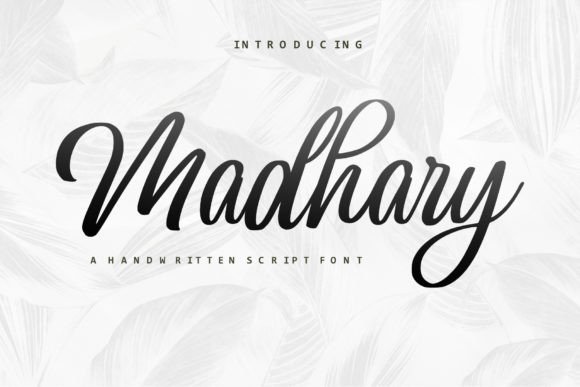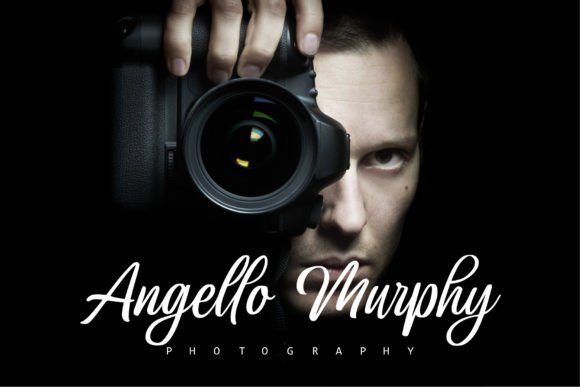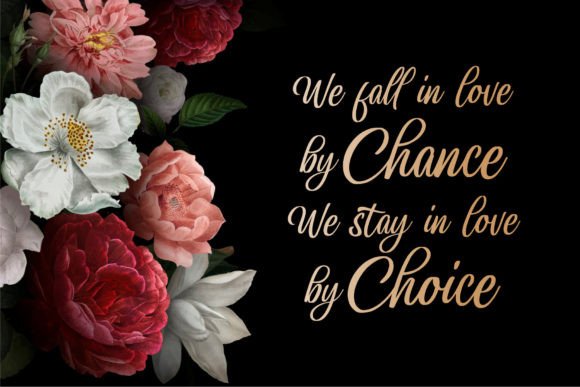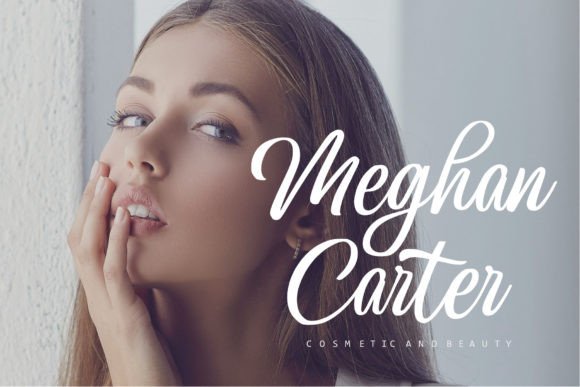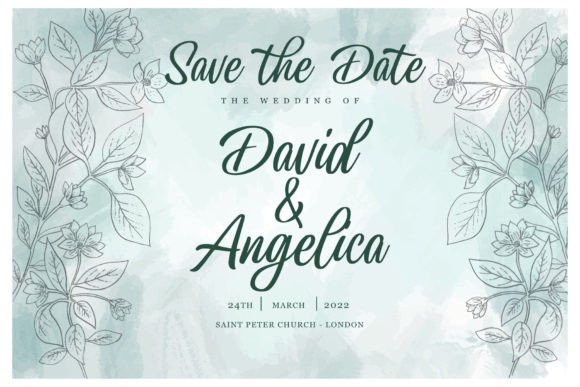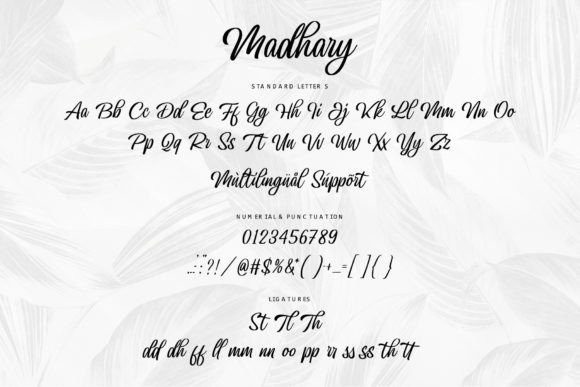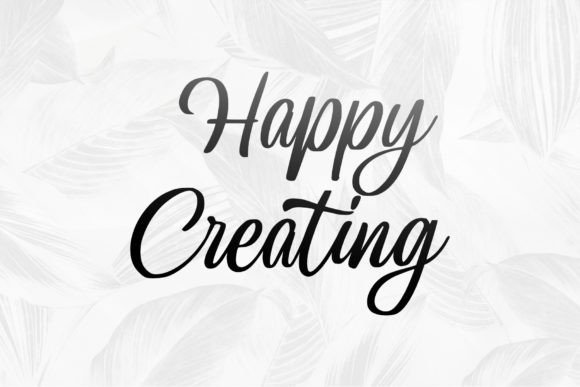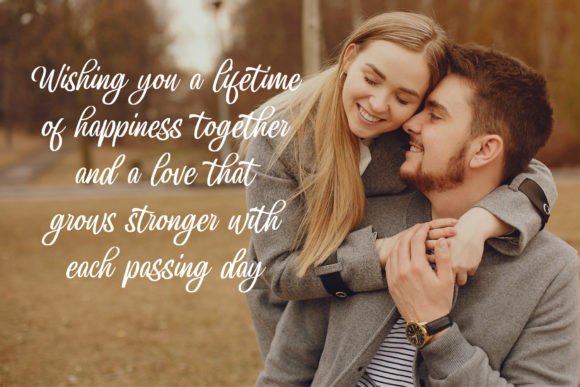
Madhary Font
About Madhary Font
**Madhary – Chic and Refined Script Font**
Madhary is an elegant and refined script font with stylish ligatures, making it a versatile choice for a wide range of design projects. Here are some key features and potential uses for Madhary:
1. **Chic Typography:** Madhary exudes chic and sophistication, making it an excellent choice for projects that require an upscale and stylish appearance. Its fashionable script style adds a touch of elegance to your designs.
2. **Branding Projects:** Use Madhary for branding and visual identity projects. Create logos, business cards, and other brand collateral that communicates a sense of class and style.
3. **Wedding Designs:** Design wedding invitations, save-the-date cards, and wedding stationery with Madhary to capture the romantic and elegant essence of weddings.
4. **Social Media Posts:** Enhance your social media graphics with Madhary. Whether you’re creating posts for fashion, beauty, or lifestyle content, this font can elevate the visual appeal.
5. **Advertisements:** Craft eye-catching advertisements and promotional materials that demand attention. Madhary’s stylish script can help convey the allure of your products or services.
6. **Product Packaging:** Apply Madhary to product packaging for luxury and high-end items. Its refined appearance can enhance the perceived value of the product.
7. **Product Designs:** Use Madhary for product designs, especially those targeting a sophisticated and fashion-forward audience. The font’s chic style can align with modern design aesthetics.
8. **Labels:** Design labels for cosmetics, perfumes, fashion accessories, or gourmet foods. Madhary’s elegance can effectively communicate the quality and prestige of the products.
9. **Photography Watermarks:** Add a touch of professionalism to your photography by using Madhary as a watermark. It can protect your work while maintaining a stylish presence.
10. **Invitations and Stationery:** Create elegant and personalized invitations, stationery, and thank-you cards for various events and occasions.
11. **Typography Art:** Craft artistic typographic compositions and wall art using Madhary. Its refined appearance can be a focal point in interior decor or art prints.
12. **Labeling and Packaging:** Use Madhary for wine labels, perfume packaging, or high-end fashion labels. Its chic style aligns with luxury branding.
13. **Watermark for Branding:** Establish a unique and sophisticated brand identity by using Madhary as a watermark in your visual materials.
14. **Fashion Designs:** Apply Madhary to fashion-related designs, such as clothing labels, hang tags, and lookbook layouts. It complements the fashion industry’s aesthetics.
15. **Quotes and Typography Prints:** Design decorative typography prints and quote posters with Madhary. Its refined script style can enhance the visual impact of inspirational messages.
Madhary’s chic and refined script style, combined with its stylish ligatures, makes it a valuable asset for design projects that require an element of sophistication and elegance. Its versatility allows it to shine in a wide range of creative and professional applications, adding a touch of class to your work.